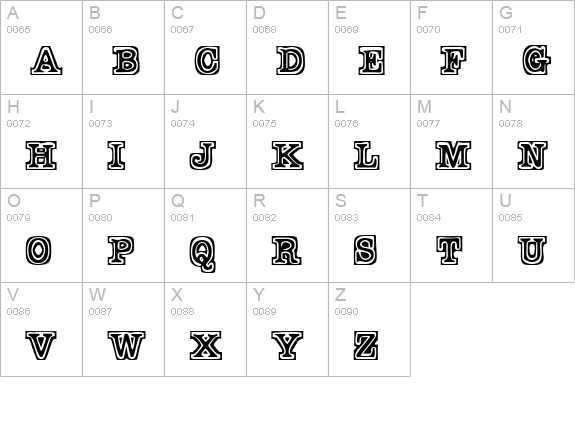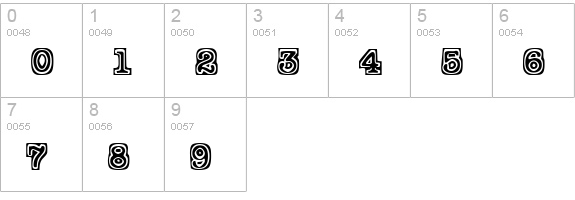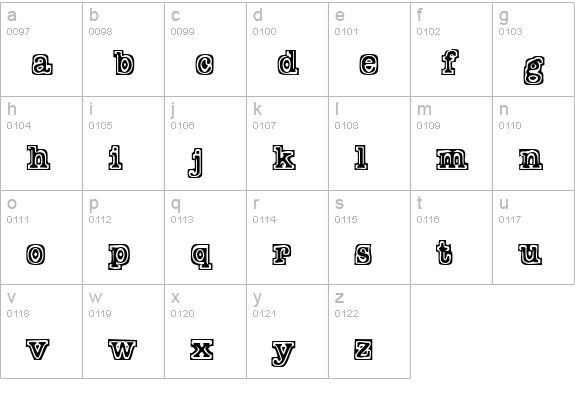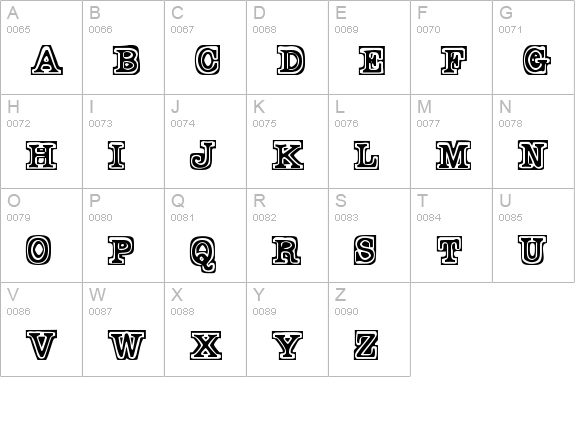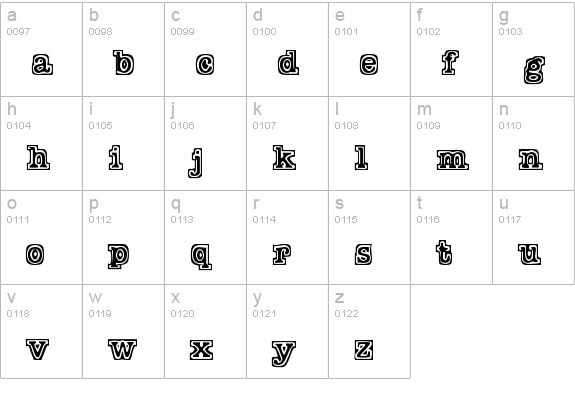
TypeBlock Font Details
TypeBlock is a stunningly versatile font that effortlessly combines elegance with a touch of playfulness. With its clean lines and modern aesthetic, this font is perfect for a wide range of design projects, from branding and packaging to editorial and web design. What sets TypeBlock apart is not only its impeccable design, but also the fact that it is available for free download. Yes, you read that right - this incredible font can be yours without costing you a penny. Thanks to its creators' generosity, TypeBlock can be freely accessed and used by anyone who appreciates its beauty. Whether you're a professional designer looking to add a fresh and unique touch to your creations, or a passionate individual with a love for typography, TypeBlock will undoubtedly capture your attention. Its versatility allows it to adapt to various styles, making it suitable for both bold and minimalist designs. To get your hands on this remarkable font, simply head over to FontsMarket.com, where it can be downloaded with ease. This user-friendly website provides a hassle-free experience, ensuring that you can start using TypeBlock in no time. So why wait? Embrace the beauty and creativity that TypeBlock offers and elevate your design projects to new heights. Don't miss out on this opportunity to add a touch of sophistication to your work, all while enjoying the freedom of using a font that is freely available to download at FontsMarket.com.